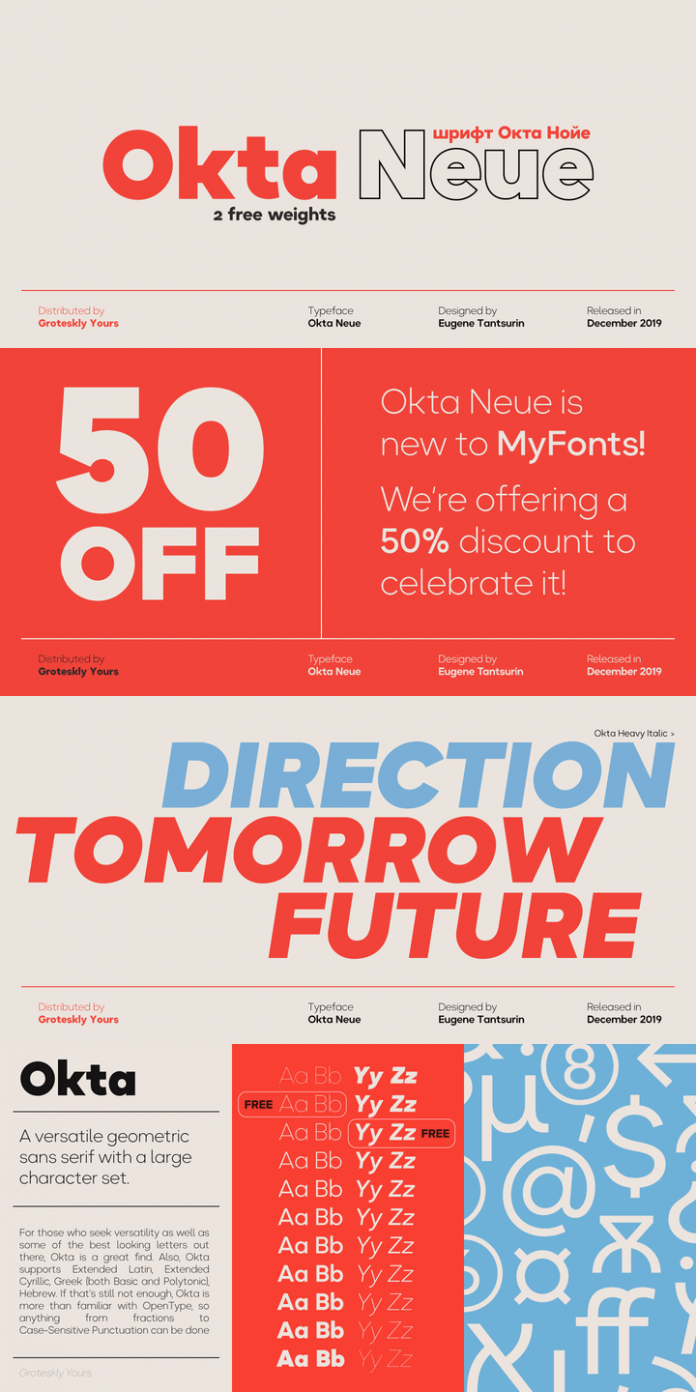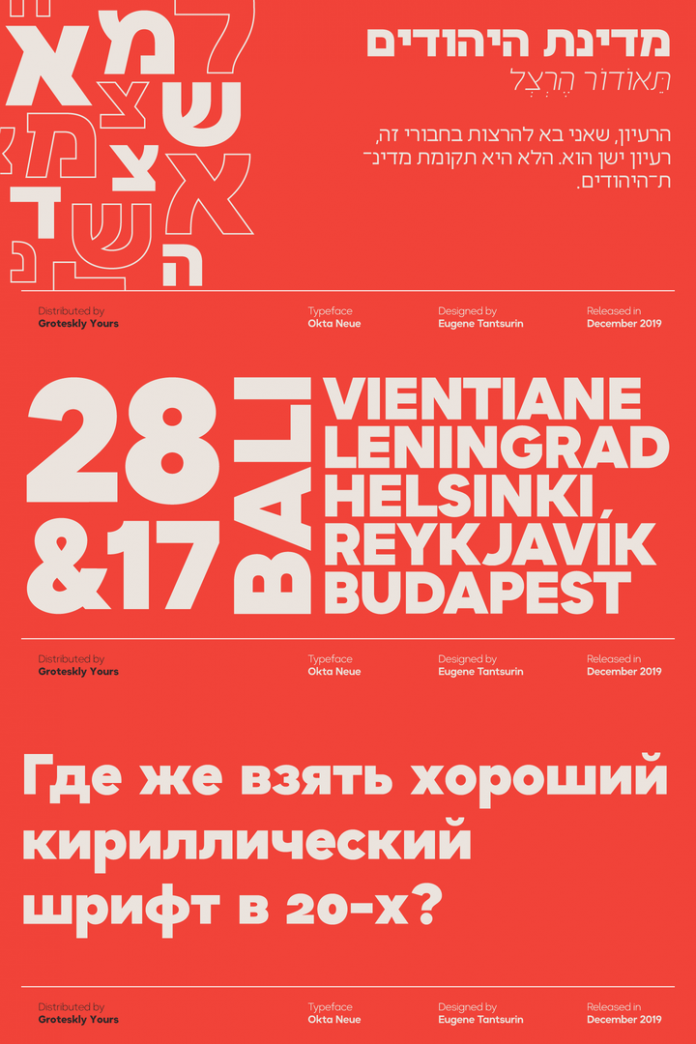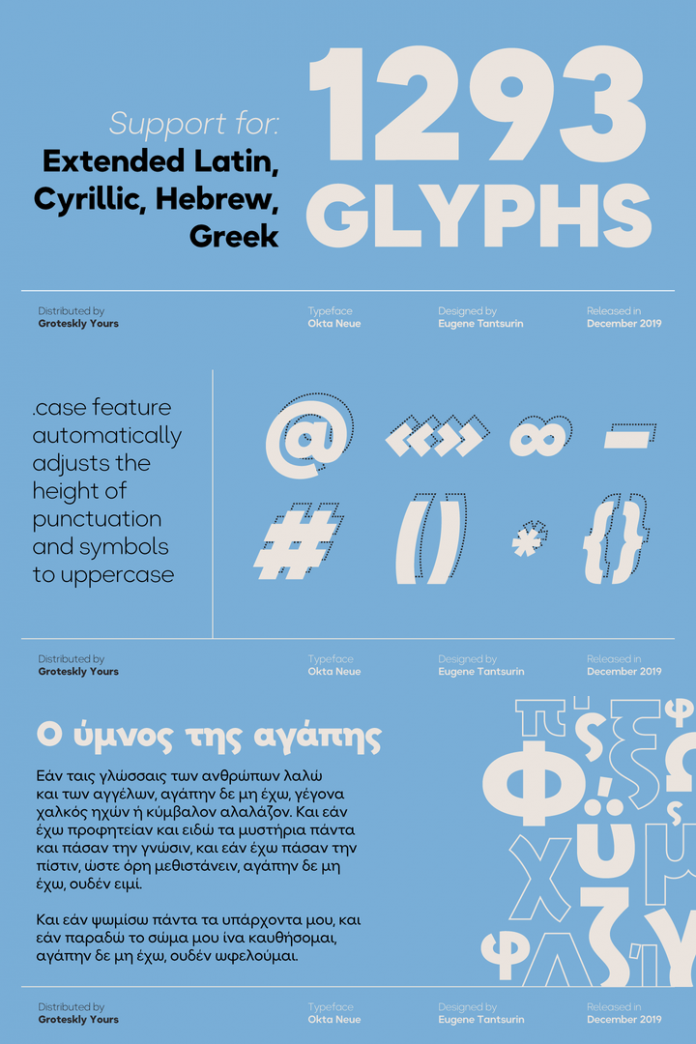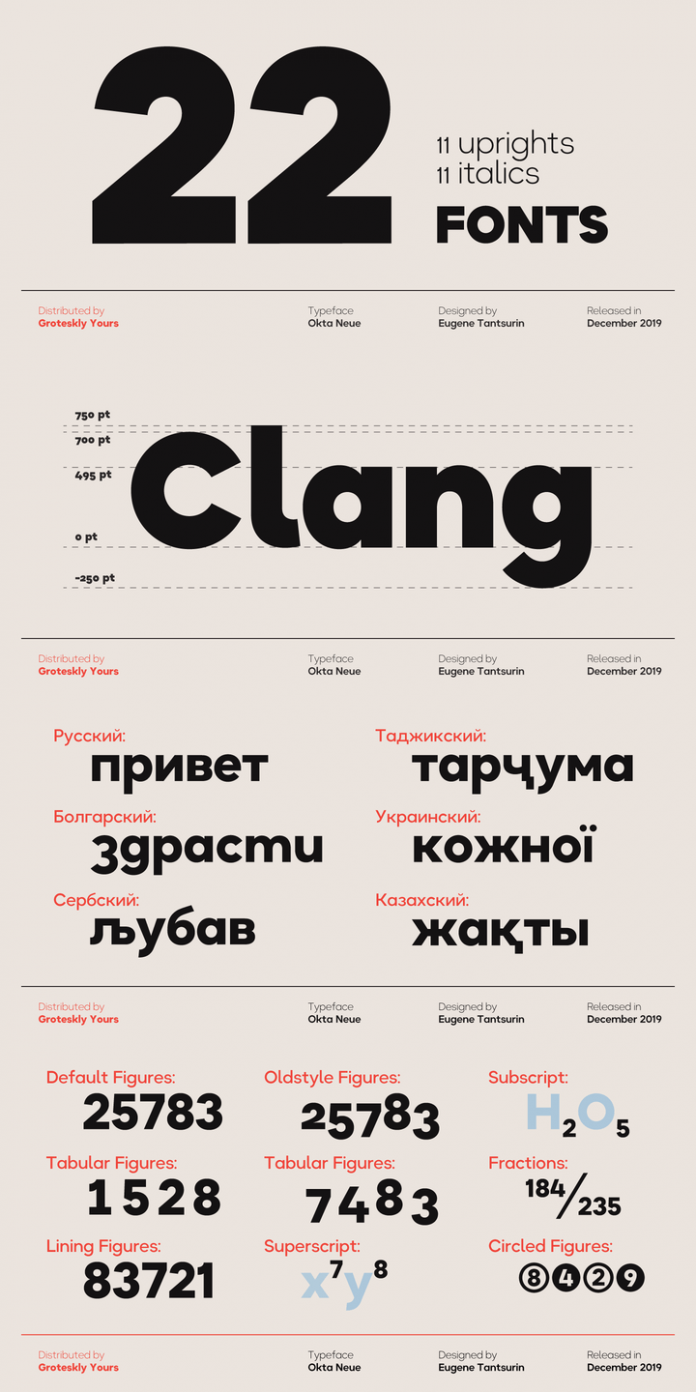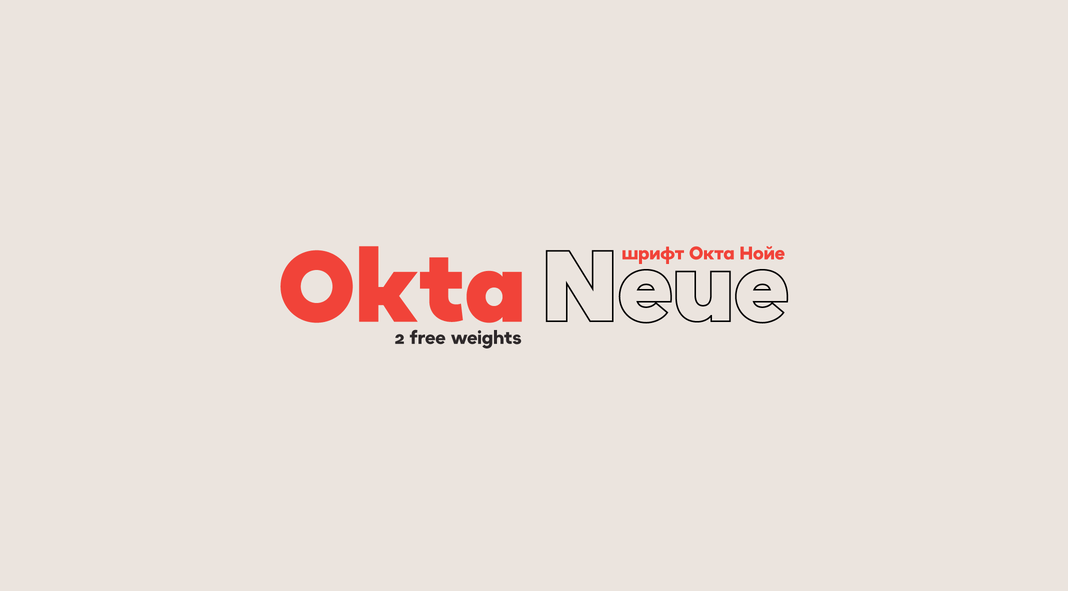
Okta Neue, an extended version of the Okta font family.
Designed by Eugene Tantsurin and released in December 2019 by foundry Groteskly Yours, Okta Neue is an extended version of the popular Okta family. This new release combines Okta’s remarkable features of great legibility, simple geometric letters, and low contrast across all styles with extensive language support and enhanced OpenType features. Please learn more below or click on the following link to purchase the family as a heavily discounted introductory offer on MyFonts.
The Okta Neue font family is based on a neutral typeface, which is a great workhorse for graphic designers, typographers, and other font users. Certain characters of the original Okta family remained the same while others have undergone a complete transformation to make the entire font family more uniform and better tailored for the wide implementation range of Okta Neue. The size of the character set in Okta Neue almost doubled due to the extended Latin set and introduction of new alphabets including extended Cyrillic, Greek (basic and polytonic), and Hebrew. The Cyrillic set also includes localized forms for such languages as Bulgarian, Serbian, and many others. Read more below or click on the following link to download the family.
The Okta Neue font family is equipped with 22 styles (11 uprights and 11 italics). The Ultra Light and Black Italic styles are available as a free download to get a firsthand experience of what Okta Neue is ready to offer.
The Okta Neue font family comes with plenty of OpenType features including alternatives, contextual alternatives, punctuation, symbols, different styles of numerals, subscript and superscript, fractions, and two sets of circled numbers. The complete family is now available as an introductory offer at MyFonts (50 % off)—just follow the link below.